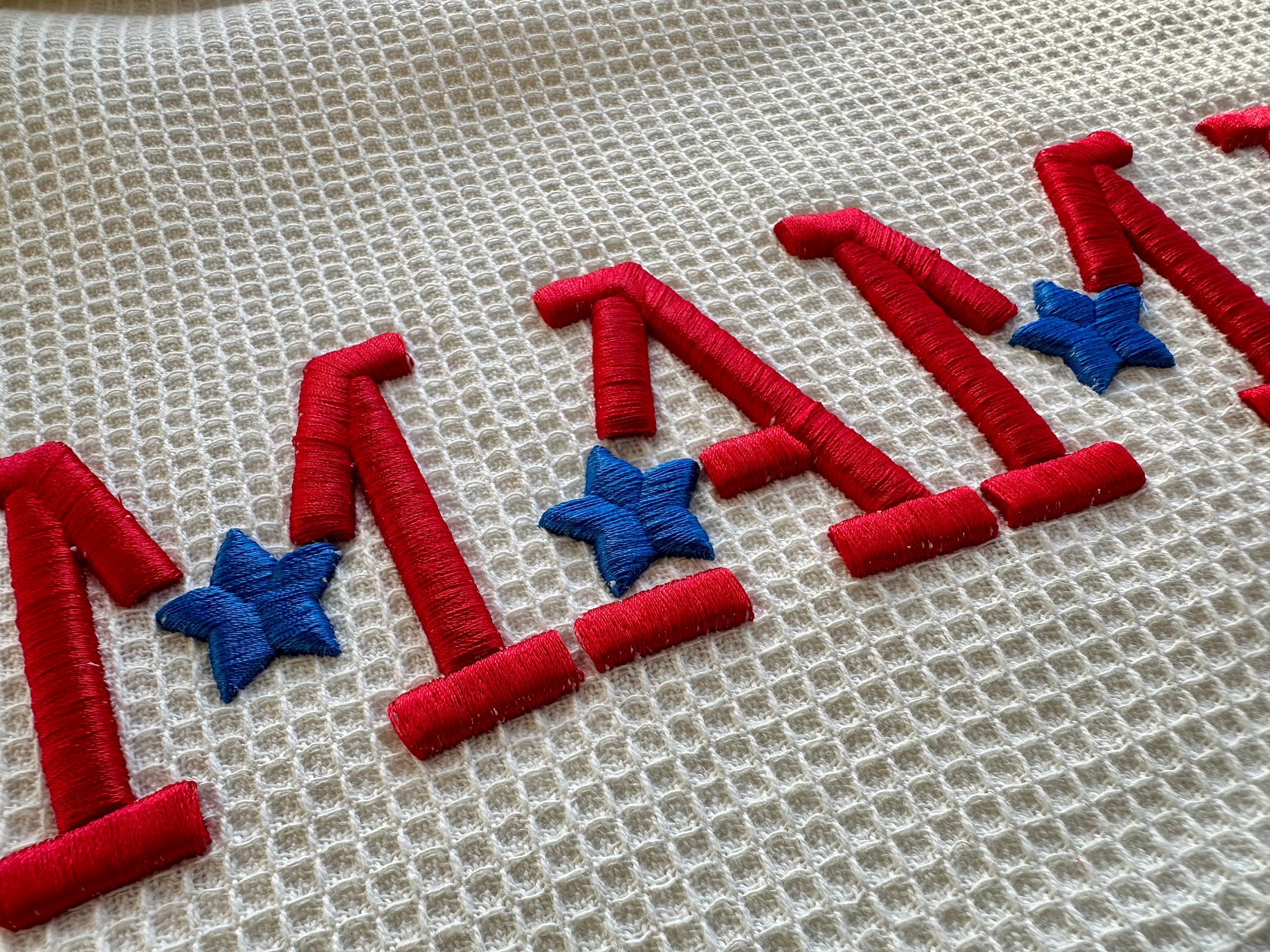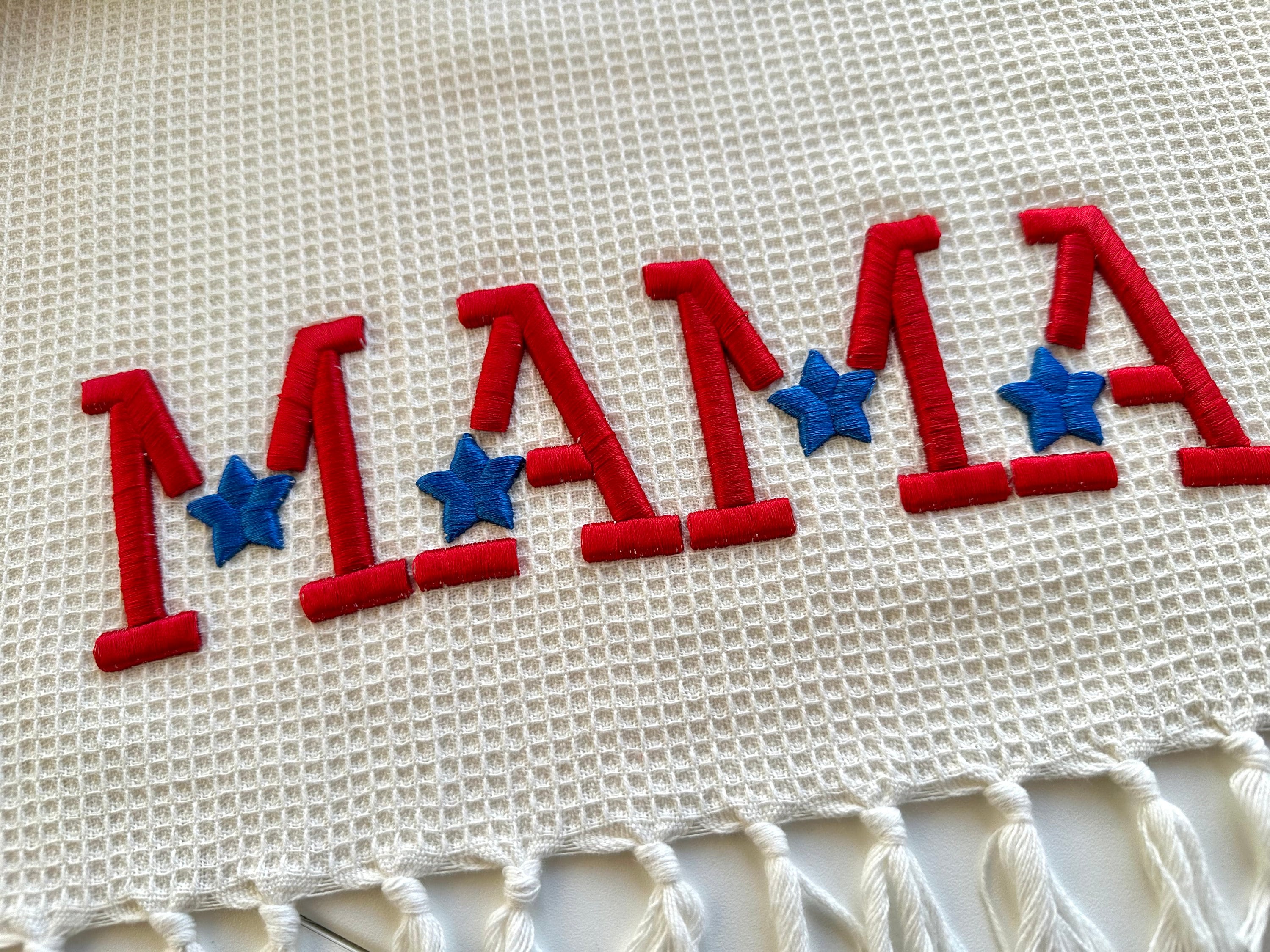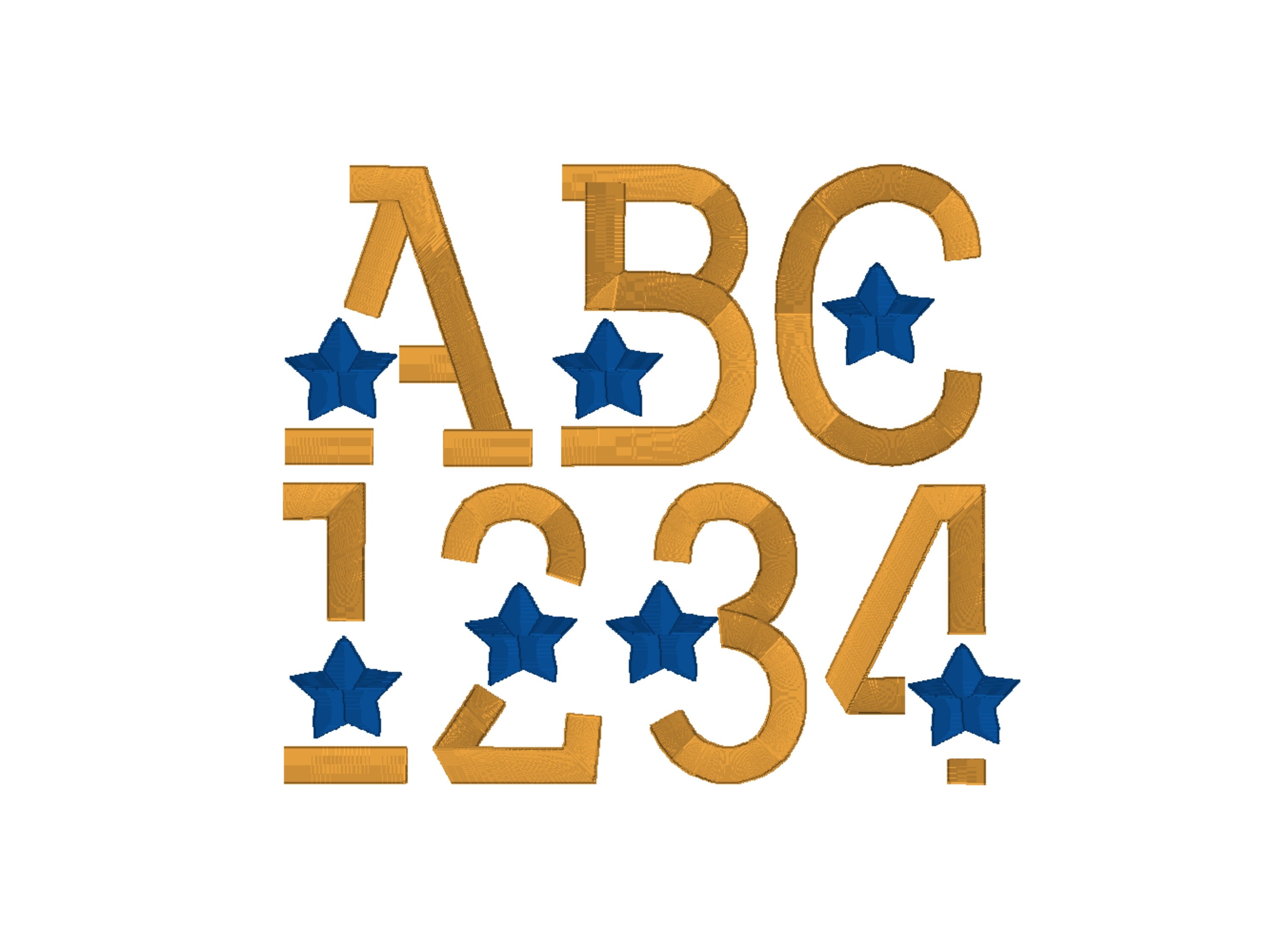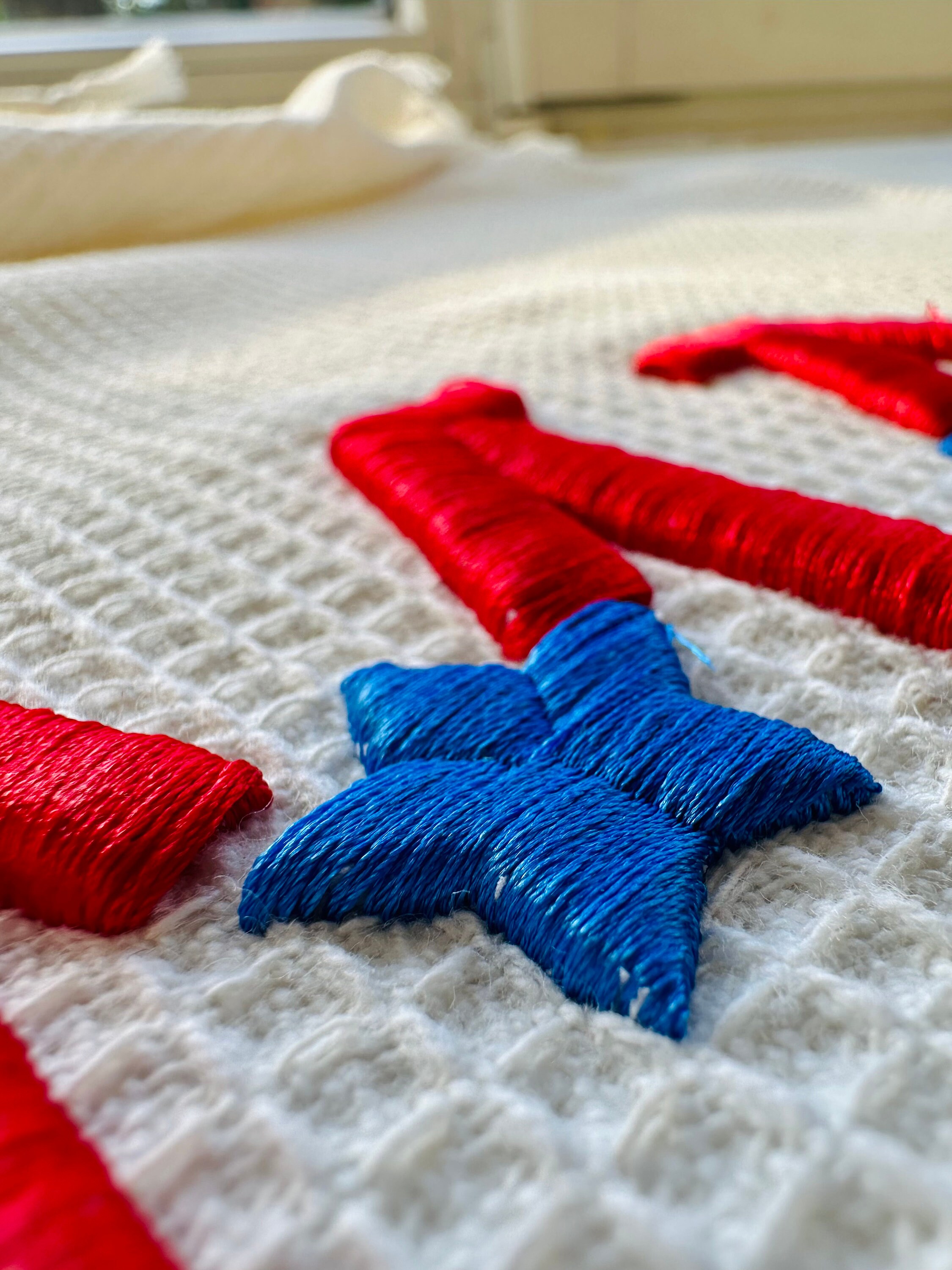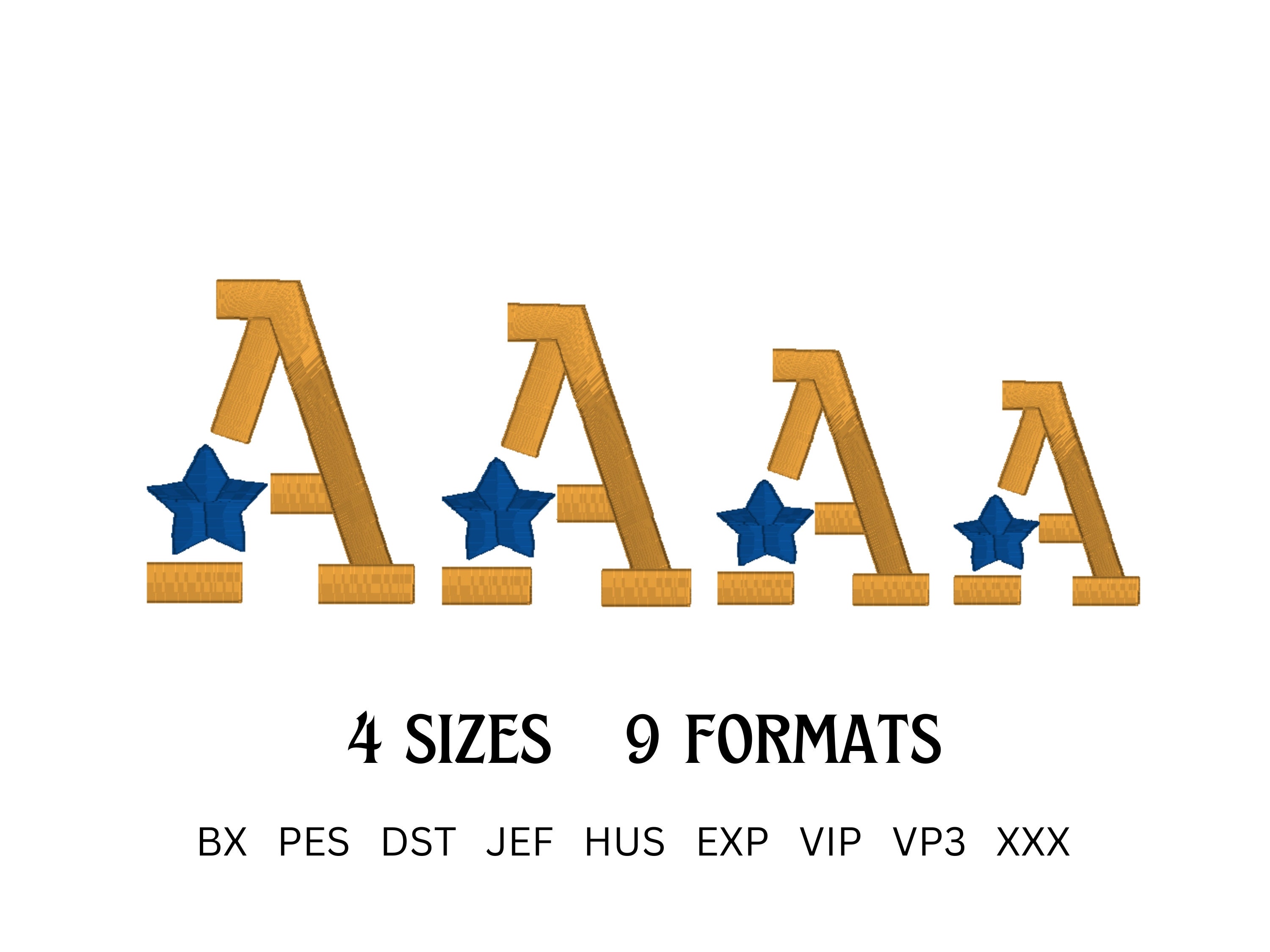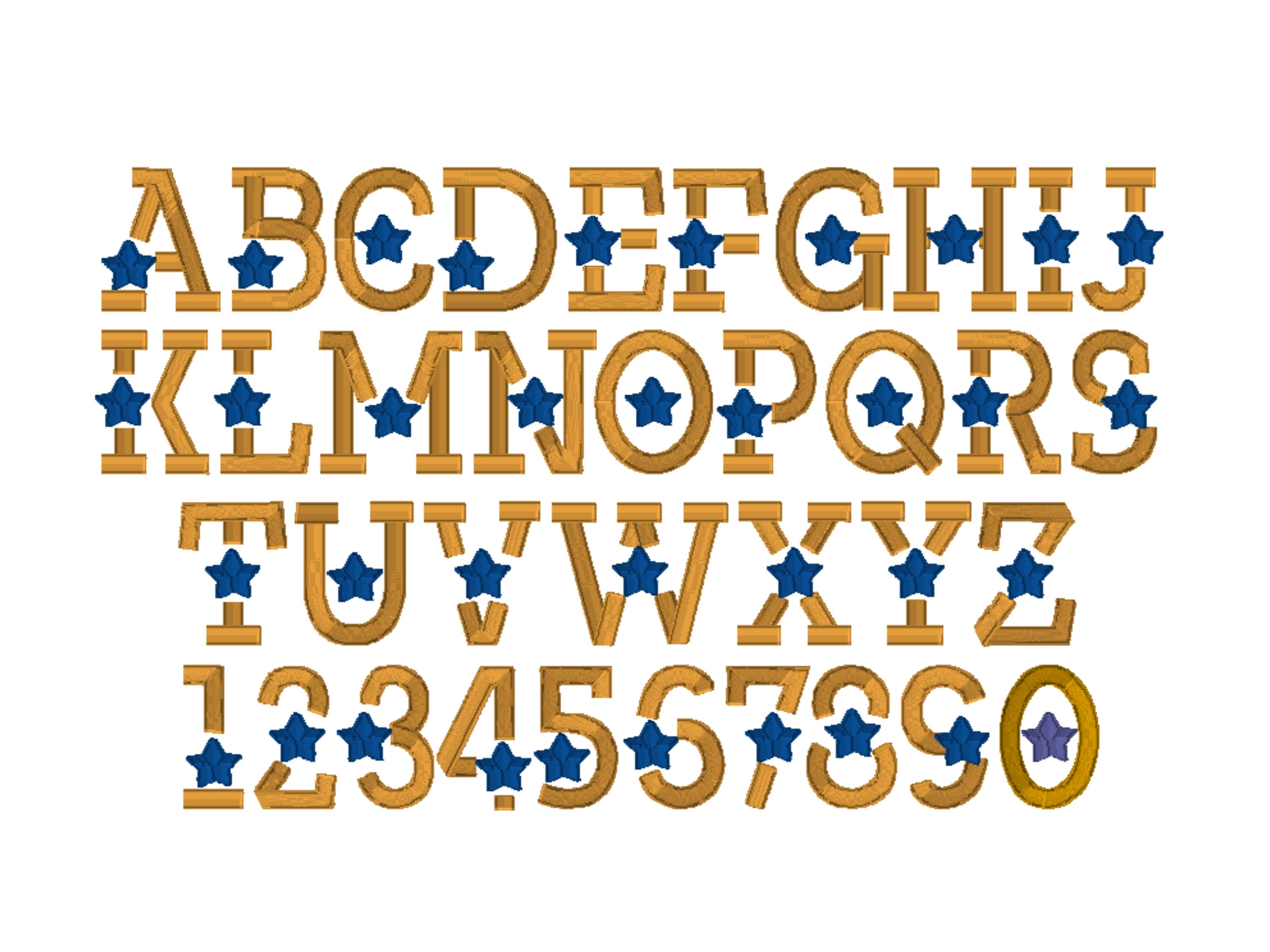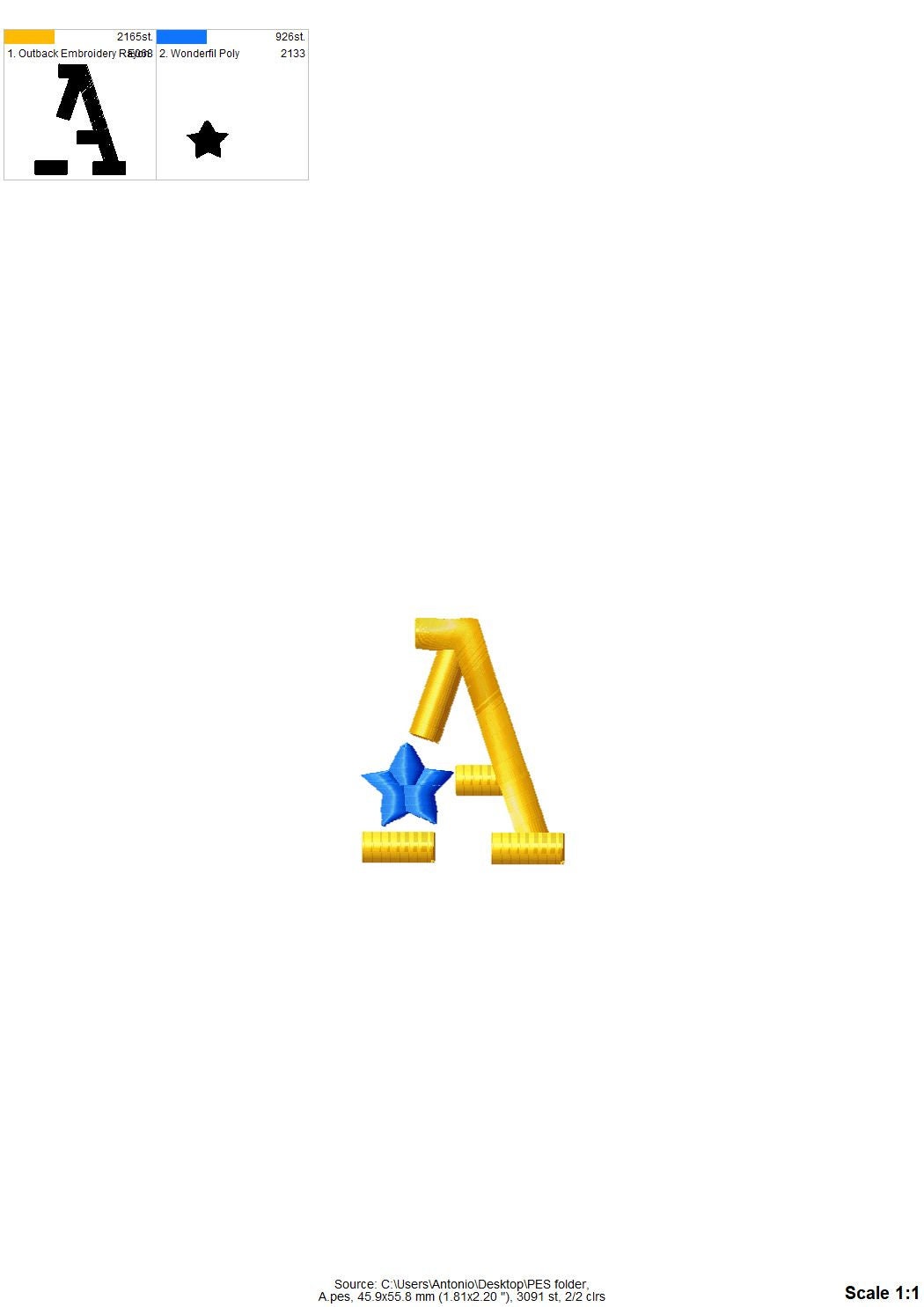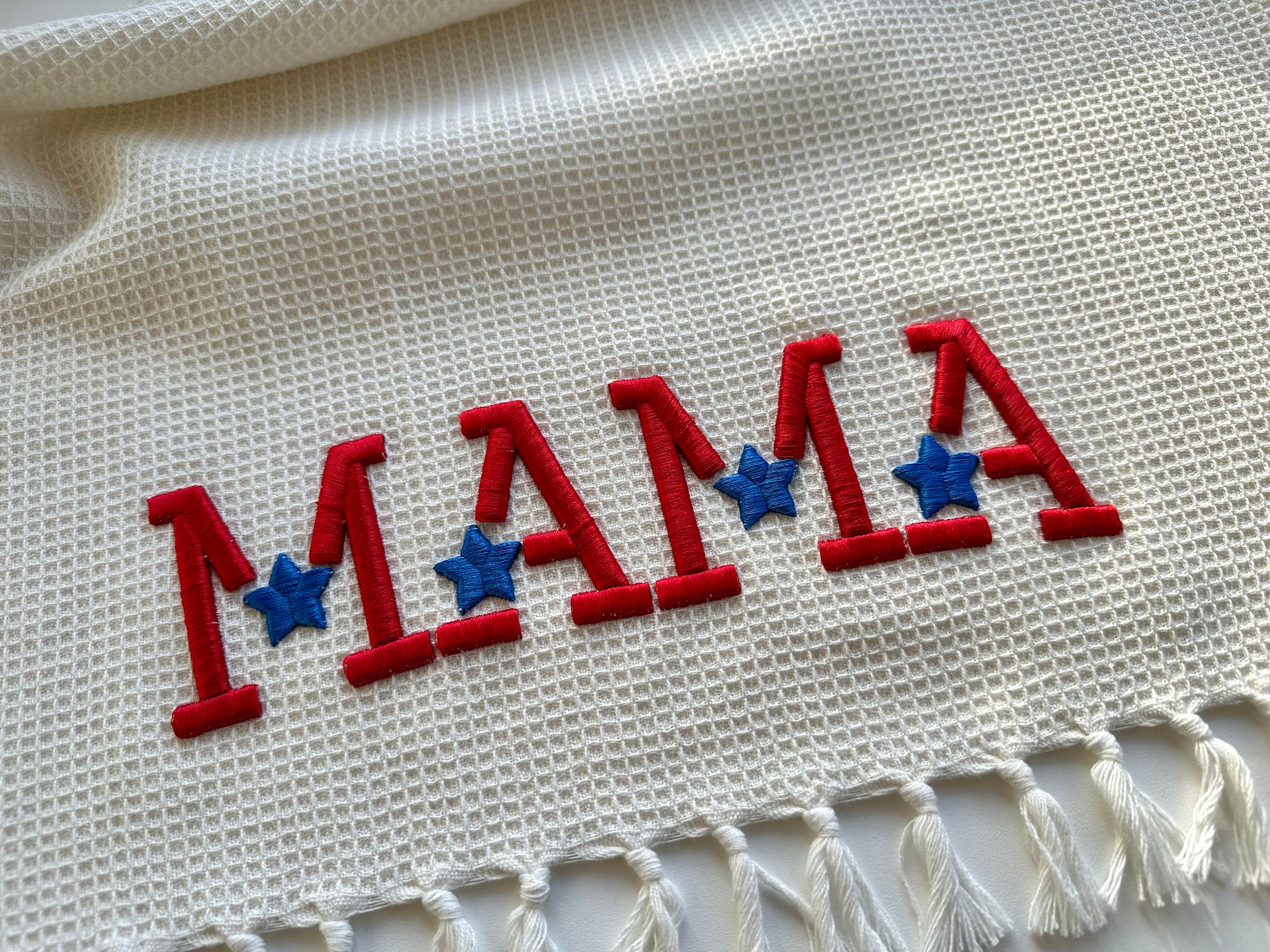
Puff Star Embroidery font machine embroidery designs 3D raised Puffy Foam Starry alphabet monogram Block Font 1.9, 2.2, 2.6, 2.8 inches, BX
Whole alphabet A-Z uppercase, and numbers 0-9.
For this design puffy foam is required. I'm using Gunold puffy foam thickness 3 mm.